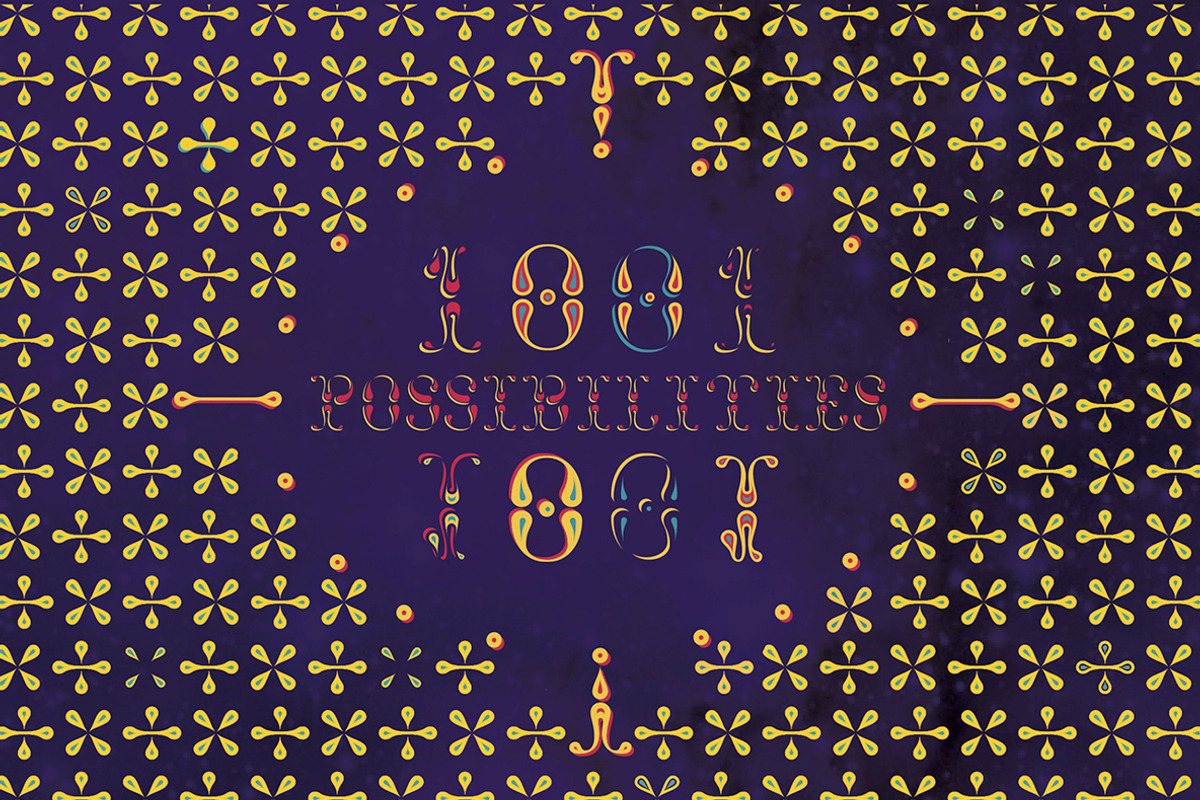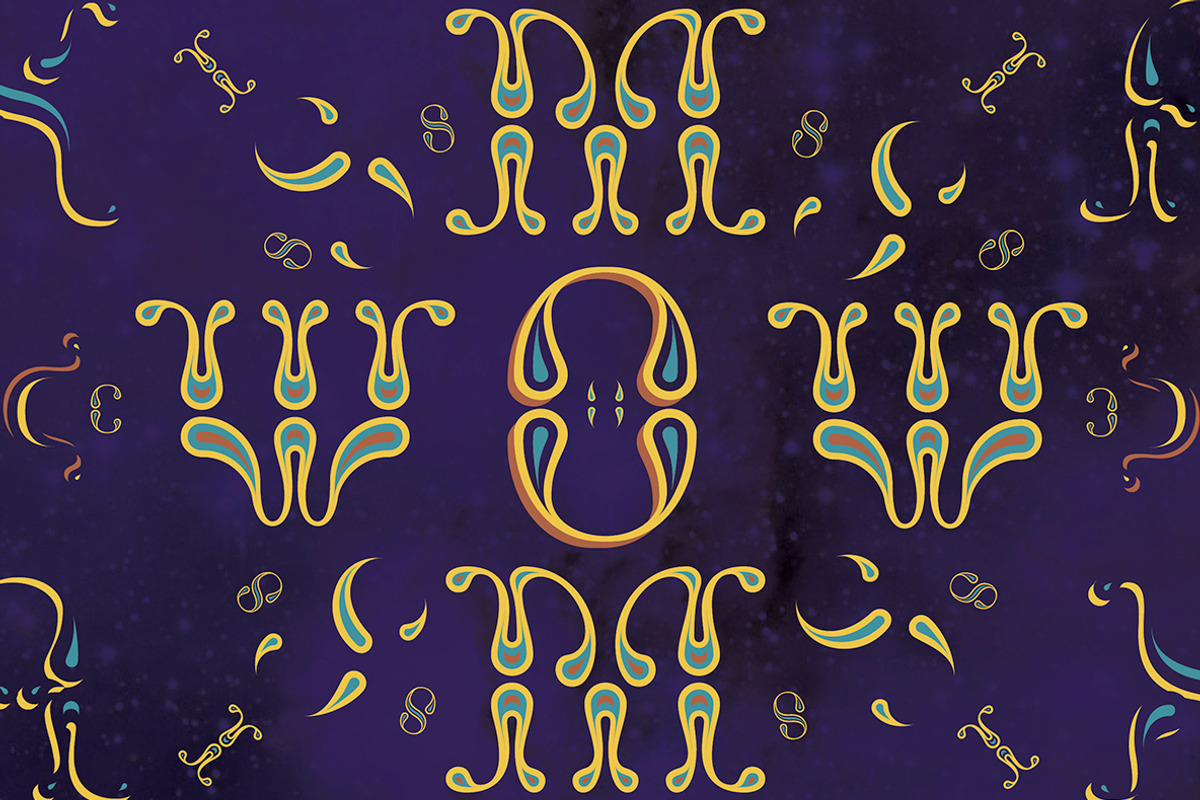
Fata
NT Fata is a decorative multi-layered font. It allows endless possibilities. The ornamental shapes refer to middle eastern patterns, giving the type a mysterious and imaginative feel. The glyph set contains elegant ornaments, enabling you to decorate your design even further. Perfect for a beautiful invitation, heading or logo.
NT Fata is a set of 5 fonts designed by Novo Typo (typo)graphic designers from Amsterdam - The Netherlands. www.novotypo.nl